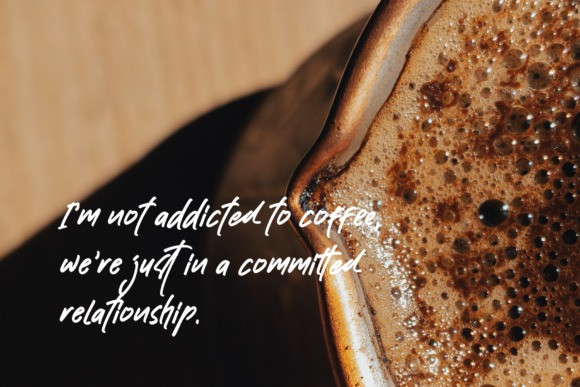
Pastry Handwritten Font
Pastry is a chic monoline font with flowy line. It’s suitable for food branding project to show “tasty” impress. You can get uppercase and lowercase letters, numeral and punctuation, and “tt” and “dd” ligatures.